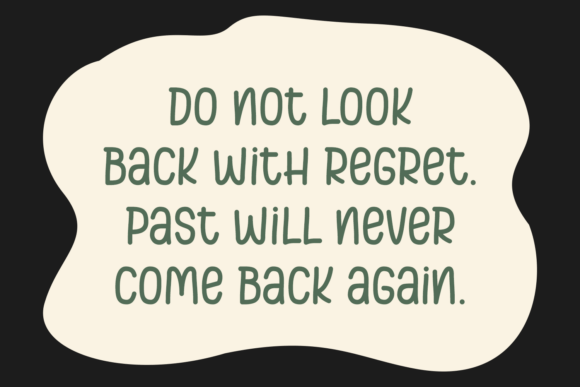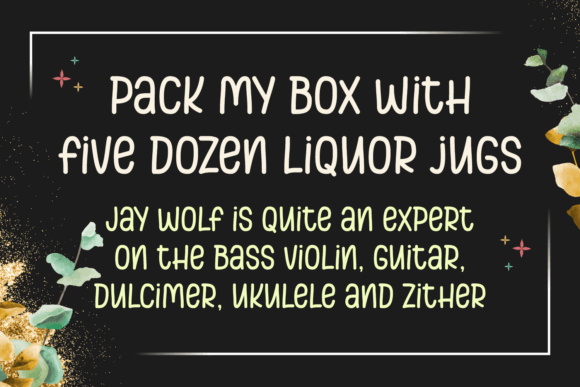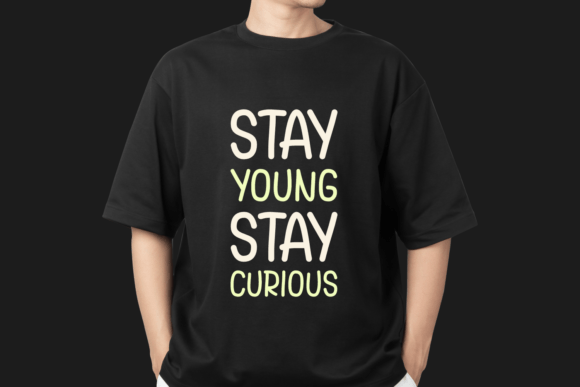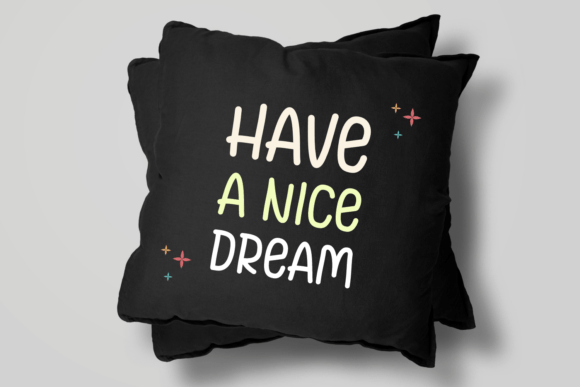
Introduction to Blank Dream Font
Blank Dream is a cute handwritten font that features playful, rounded letters.
It gives a friendly and personal feel, perfect for projects like invitations, greeting cards, or childrenโs books The design is easy to read and adds a warm touch to any text.
Key Features of Blank Dream Font
Why Choose Blank Dream Font?